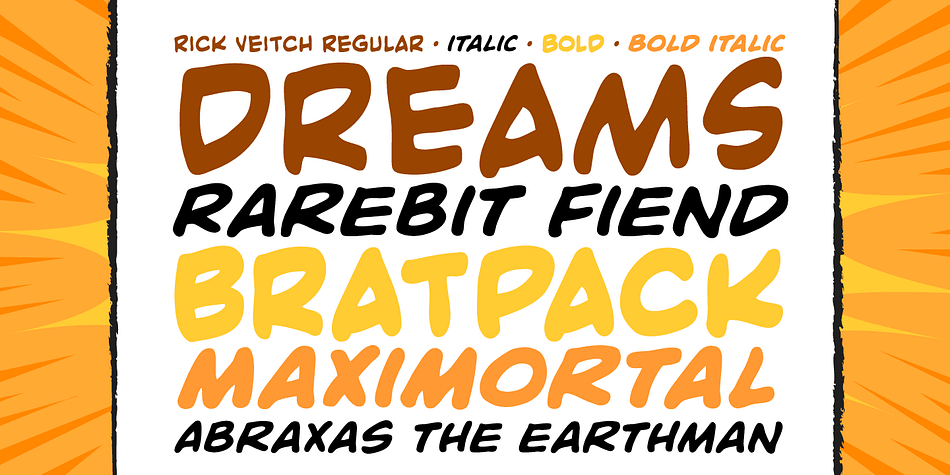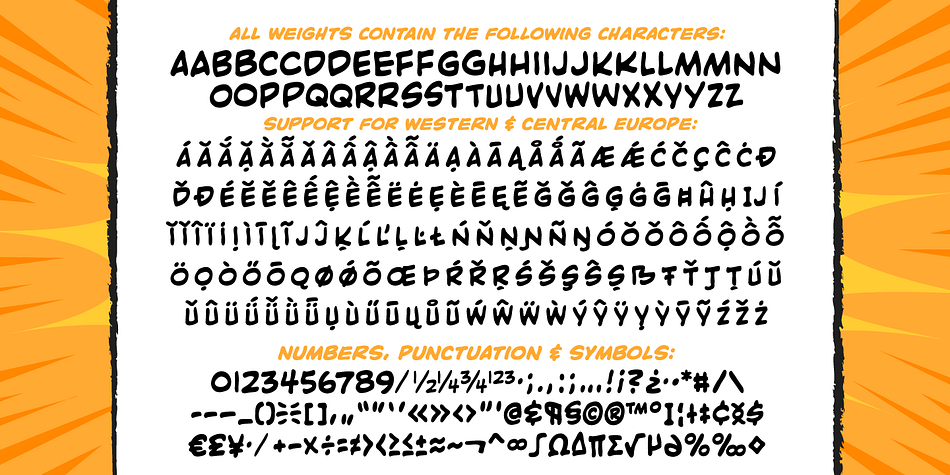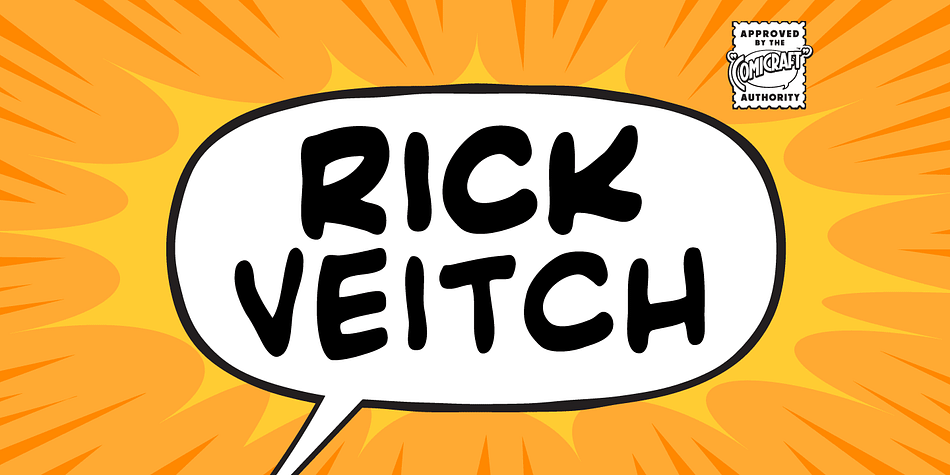
Designed by John Roshell and Rick Veitch, Rick Veitch is a comic and hand display font family. This typeface has four styles and was published by Comicraft.
For our latest Master of Comic Book Art, Roarin’ Rick Veitch, we’ve created a Brat Pack of fonts worthy of a Maximortal! This is The One! This will make your Heartburst! If you Can’t Get No Rick Veitch between 1941 and 1963, wipe that Swamp Thing off America’s Best Greyshirt, because this font is nothing short of A Miracle, Man! It’s Epic! Abraxas and the Earthman and your Army @ Love recommend it.